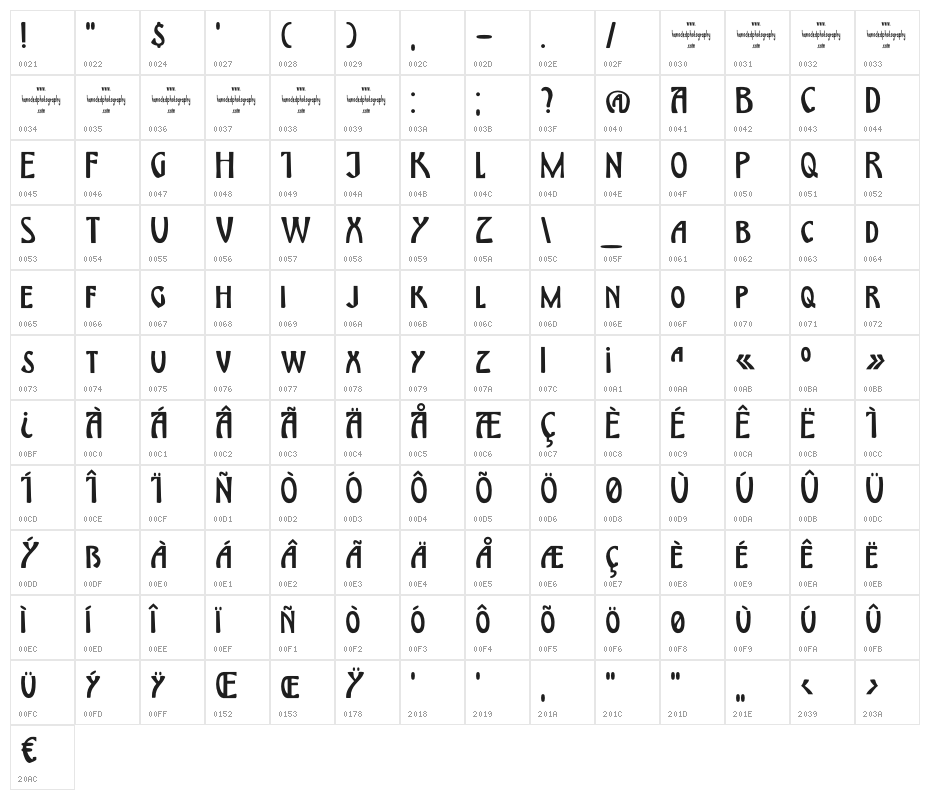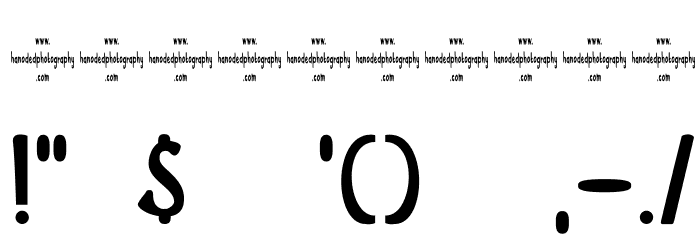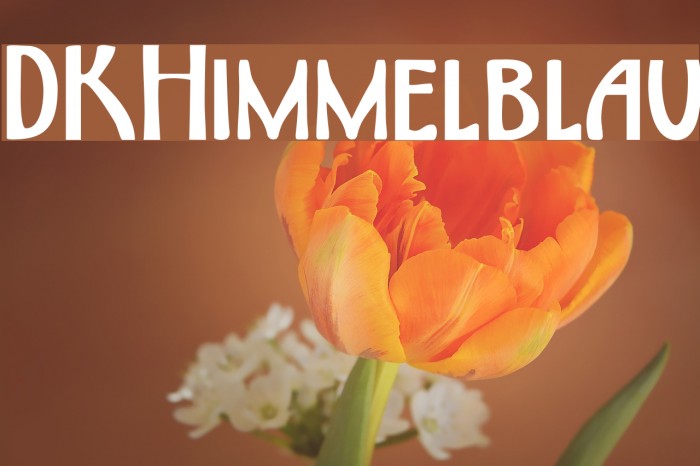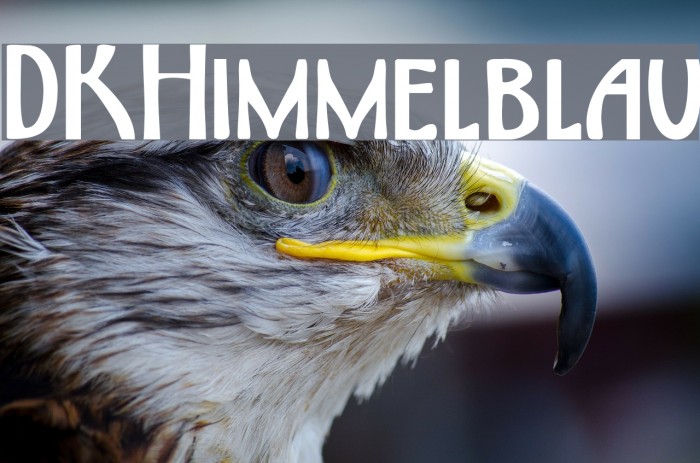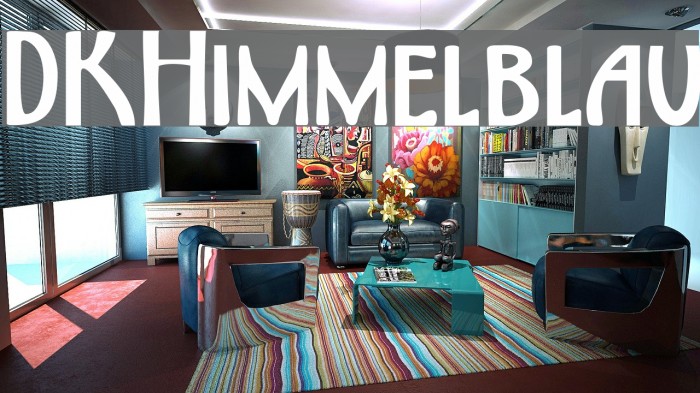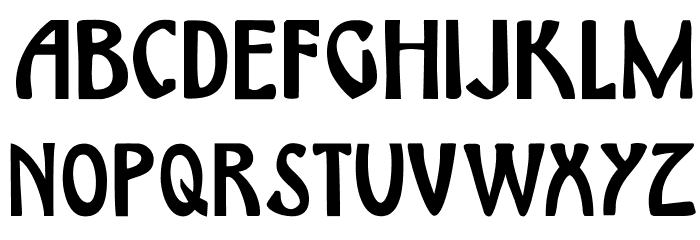
DKHimmelblau Font
DKHimmelblau Description
This font features a bold, playful style with a unique, hand-drawn appearance. The characters have a slightly whimsical flair, with varying stroke widths that add a dynamic and lively feel. The uppercase letters are particularly distinctive, with exaggerated curves and angles that give the font a sense of movement. The lowercase letters maintain this playful aesthetic, ensuring consistency throughout. The numbers and special characters are equally expressive, making this font suitable for creative and informal applications.
Fonts by David Kerkhoff - www.hanodedphotography.com
| Proposed Projects | Ideal for children's books, playful branding, creative posters, and informal invitations. |